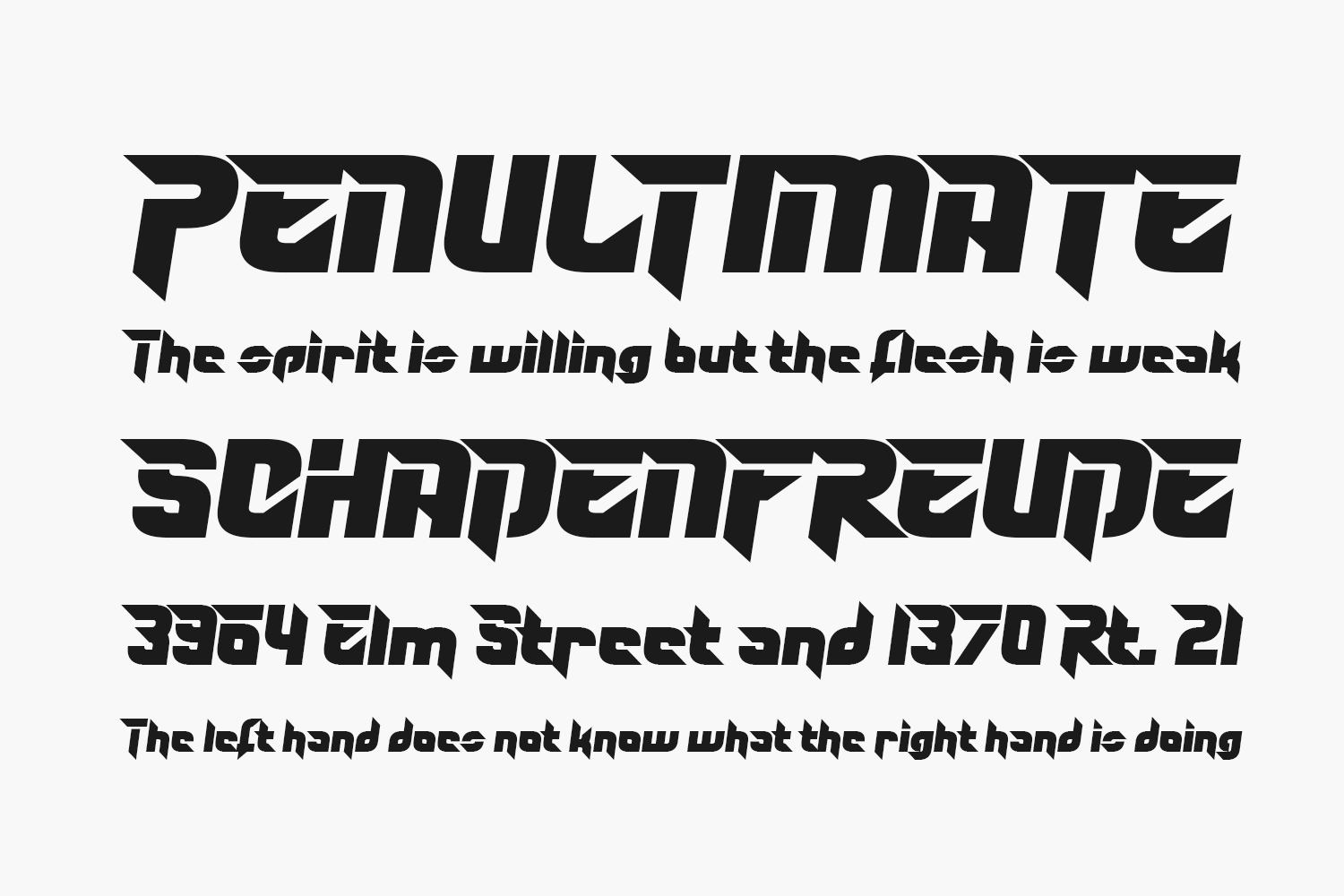
Storm Catcher is a powerful and expressive display font designed by Chequered Ink to bring bold energy and strong visual impact to your design projects. With its rugged letterforms, sharp strokes, and high contrast, this free decorative font works perfectly for creating attention-grabbing logos, posters, branding materials, and more. Available in OTF format with support for Latin characters — ideal for designers seeking a modern, dynamic typeface that stands out.
Why Choose Storm Catcher?
- Bold & Expressive Style: Combines high contrast with dramatic detailing for a striking visual presence.
- Ideal for Display Use: Perfect for large text applications like billboards, movie titles, or event posters.
Where to Use Storm Catcher?
Storm Catcher shines across a variety of creative applications:
- Logos & Branding: Adds strength and attitude to brand identities for action sports, adventure brands, or streetwear labels.
- Movies & Trailers: Ideal for film titles, animated intros, or cinematic banners.
- Poster & Billboard Design: Designed for high visibility — makes headlines pop in outdoor advertising.
- Social Media Graphics: Creates bold, eye-catching text overlays for Instagram Stories, TikTok videos, and YouTube thumbnails.
- Product Packaging: Brings intensity to product names on beverage cans, energy drinks, or extreme-sport gear.
Design Tips with Storm Catcher